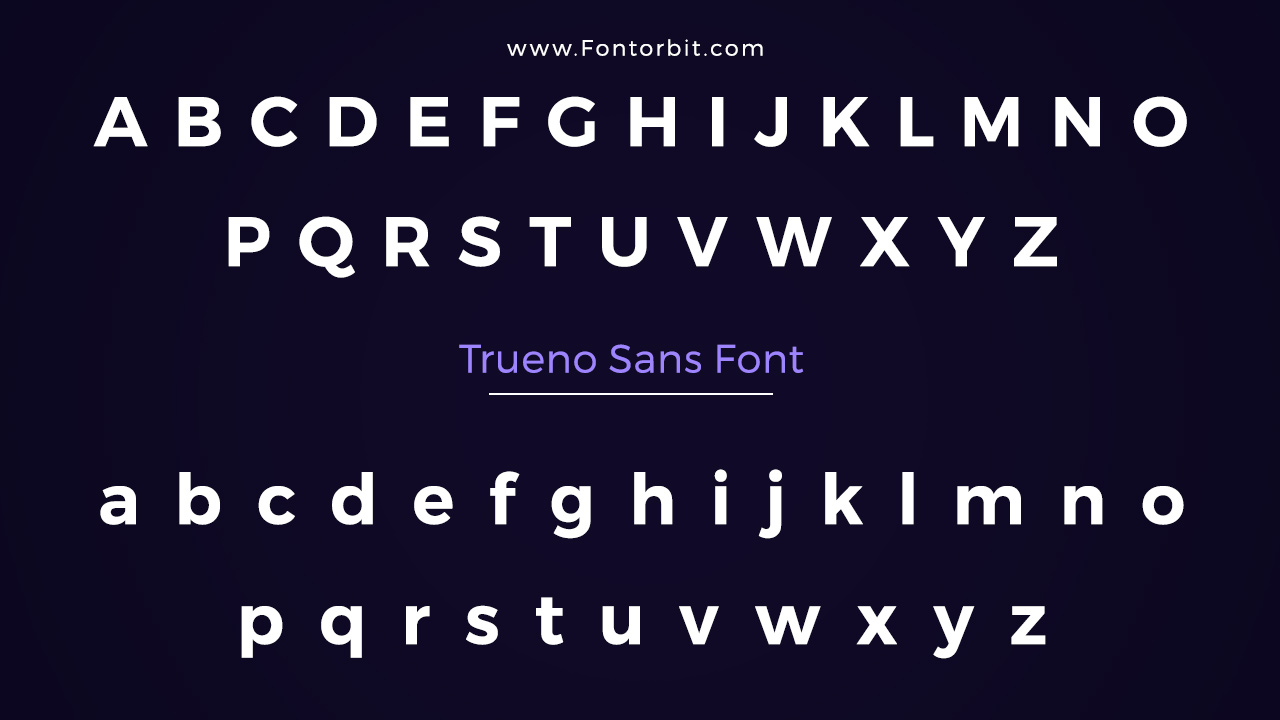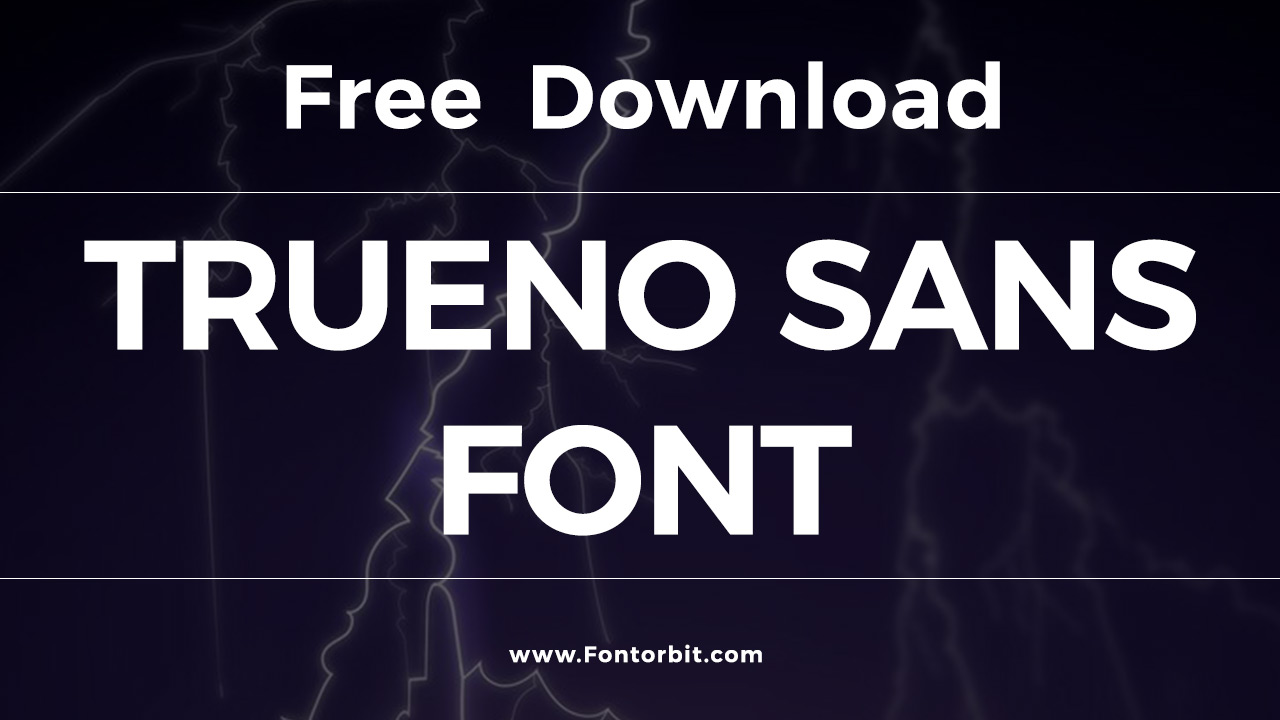
Trueno is a contemporary geometric sans-serif typeface designed by Julieta Ulanovsky, Jasper. First released in 2016, this versatile font balances modern, clean lines with a minimalist structure.
Trueno is perfect for both digital and print use, boasting a sleek and sophisticated design that’s well-suited for branding, editorial, and web projects. It belongs to the Sans-Serif font family and offers excellent readability across multiple platforms.
Trueno Sans Font Family Includes
Trueno’s family is broad and adaptable, providing a range of weights that cater to different design needs. Its versatility allows it to fit into multiple use cases, whether it’s for headlines or body text.
- Trueno Regular
- Trueno Regular Italic
- Trueno UltraLight
- Trueno UltraLight Italic
- Trueno Light
- Trueno Light Italic
- Trueno SemiBold
- Trueno SemiBold Italic
- Trueno Bold
- Trueno Bold Italic
- Trueno Bold Outline
- Trueno Bold Outline Italic
- Trueno ExtraBold
- Trueno ExtraBold Italic
- Trueno ExtraBold Outline
- Trueno ExtraBold Outline Italic
- Trueno Black
- Trueno Black Italic
- Trueno Black Outline
- Trueno Black Outline Italic
- Trueno UltraBlack
- Trueno UltraBlack Italic
Notable Uses Of Trueno
Trueno has become a go-to font for projects requiring a clean, modern look. Due to its readability and minimalist aesthetic, it is often used for brand identities, website designs, and editorial layouts. Its geometric nature gives it a professional yet approachable feel.
Trueno can be effectively used in a wide array of design projects, both print and digital. Its balanced geometric shapes make it a favorite for industries that need a contemporary feel without losing clarity and legibility. You can apply this font to various design areas:
- App design
- GIFs
- Presentations
- Public transportation navigation
- Social media ads, banners and graphics
- Video games
Trueno is a versatile, modern geometric sans-serif that works beautifully across various media and design needs. Whether you are working on a corporate branding project, a website, or editorial content, Trueno offers a minimalist, professional look that doesn’t compromise readability. Its range of weights ensures that it can adapt to different purposes, from body text to striking headlines.
1.What Type Of Font Is Trueno?
It is a geometric sans-serif font.
3.What Are The Best Uses For Trueno?
Trueno works best for branding, web design, and editorial layouts.
6.Are There Similar Fonts To Trueno?
Yes, fonts like Montserrat, Nunito, and Poppins are similar alternatives.